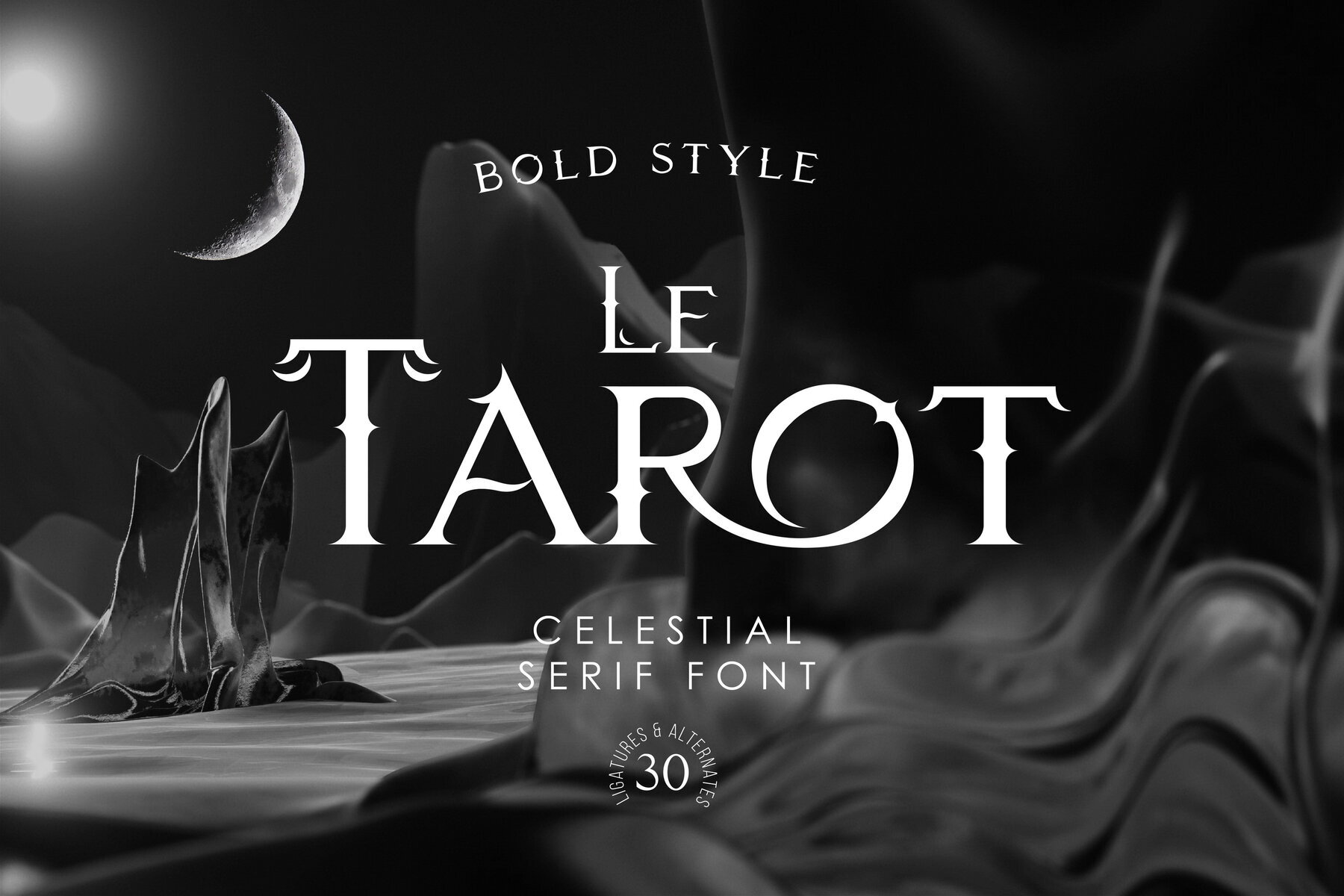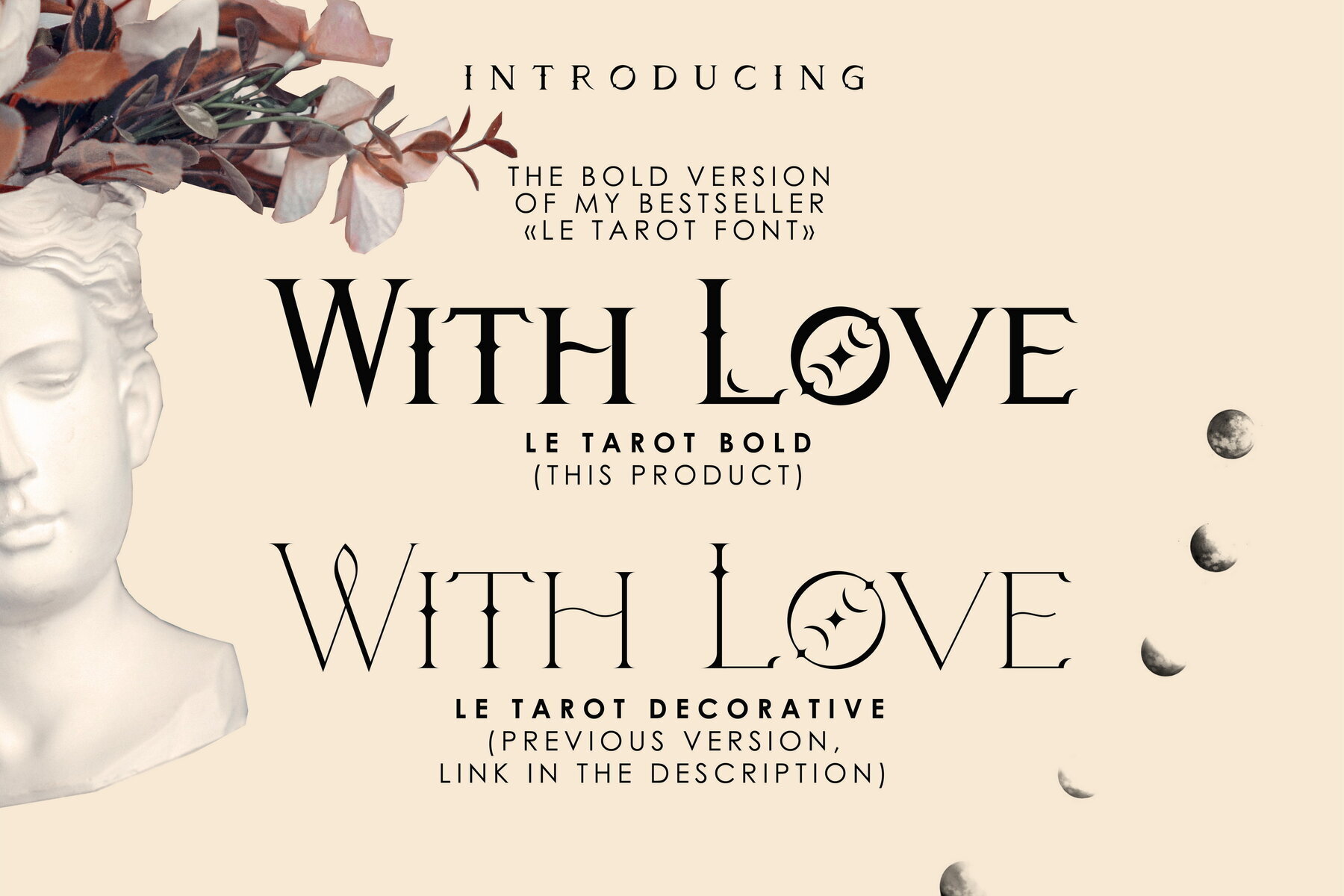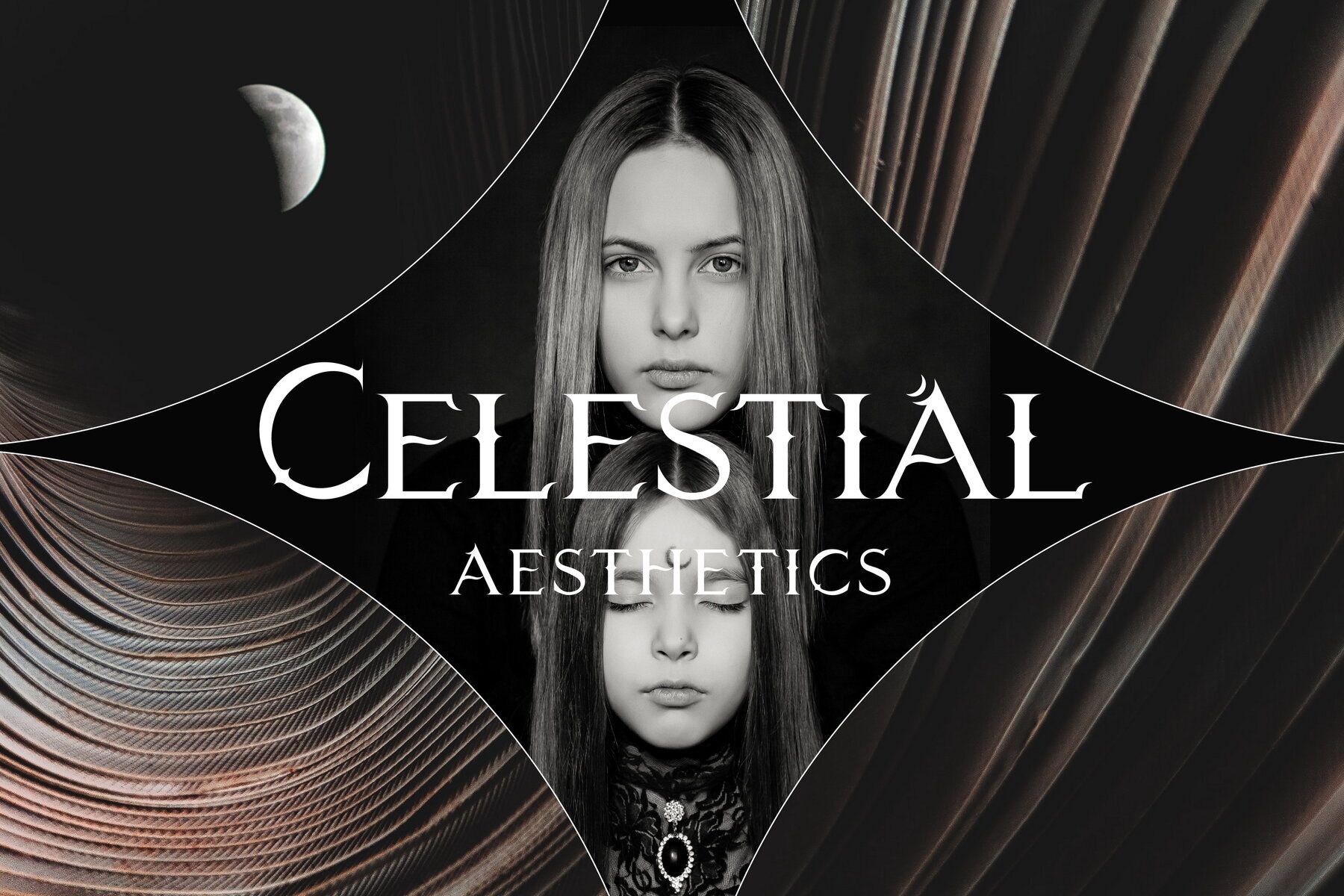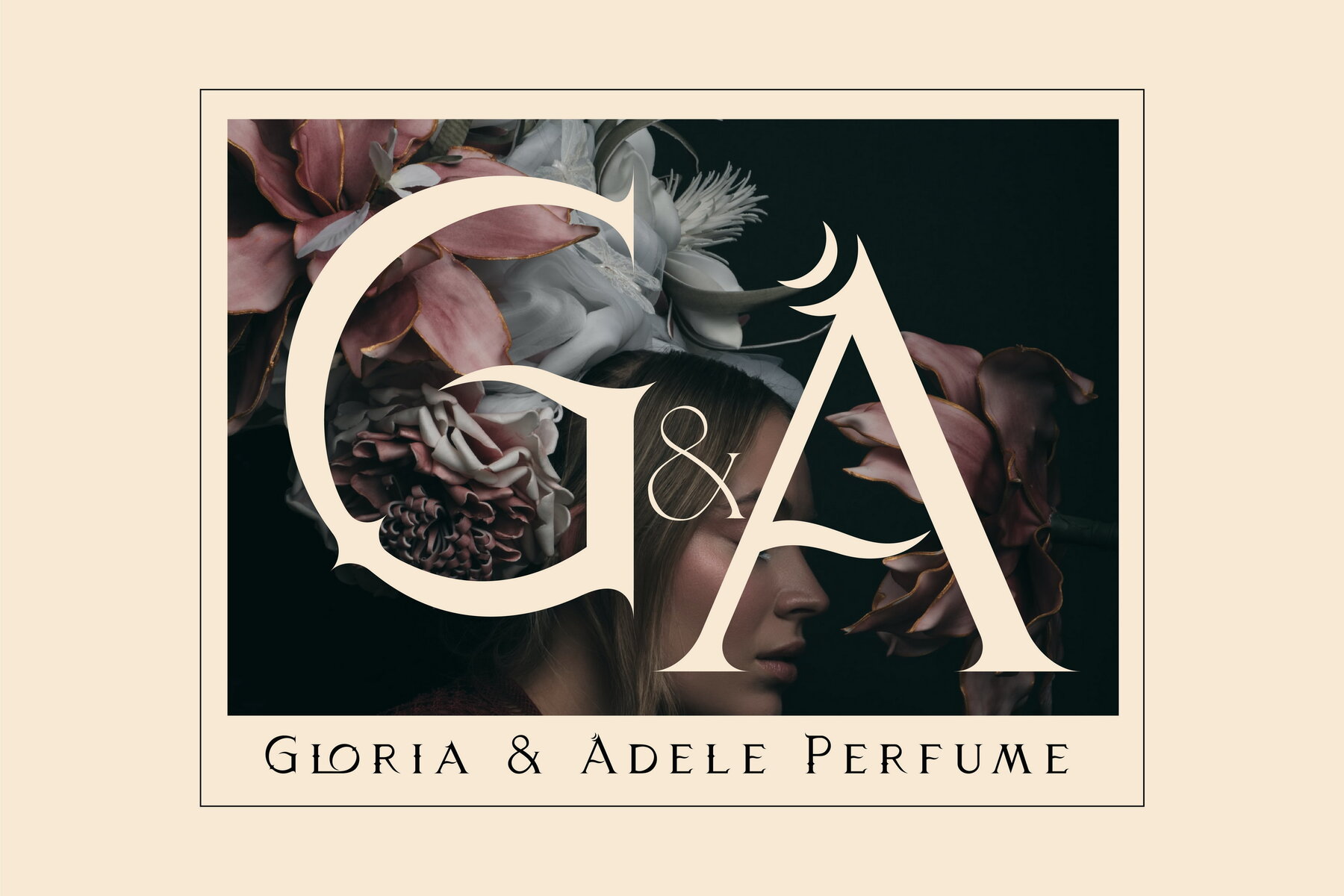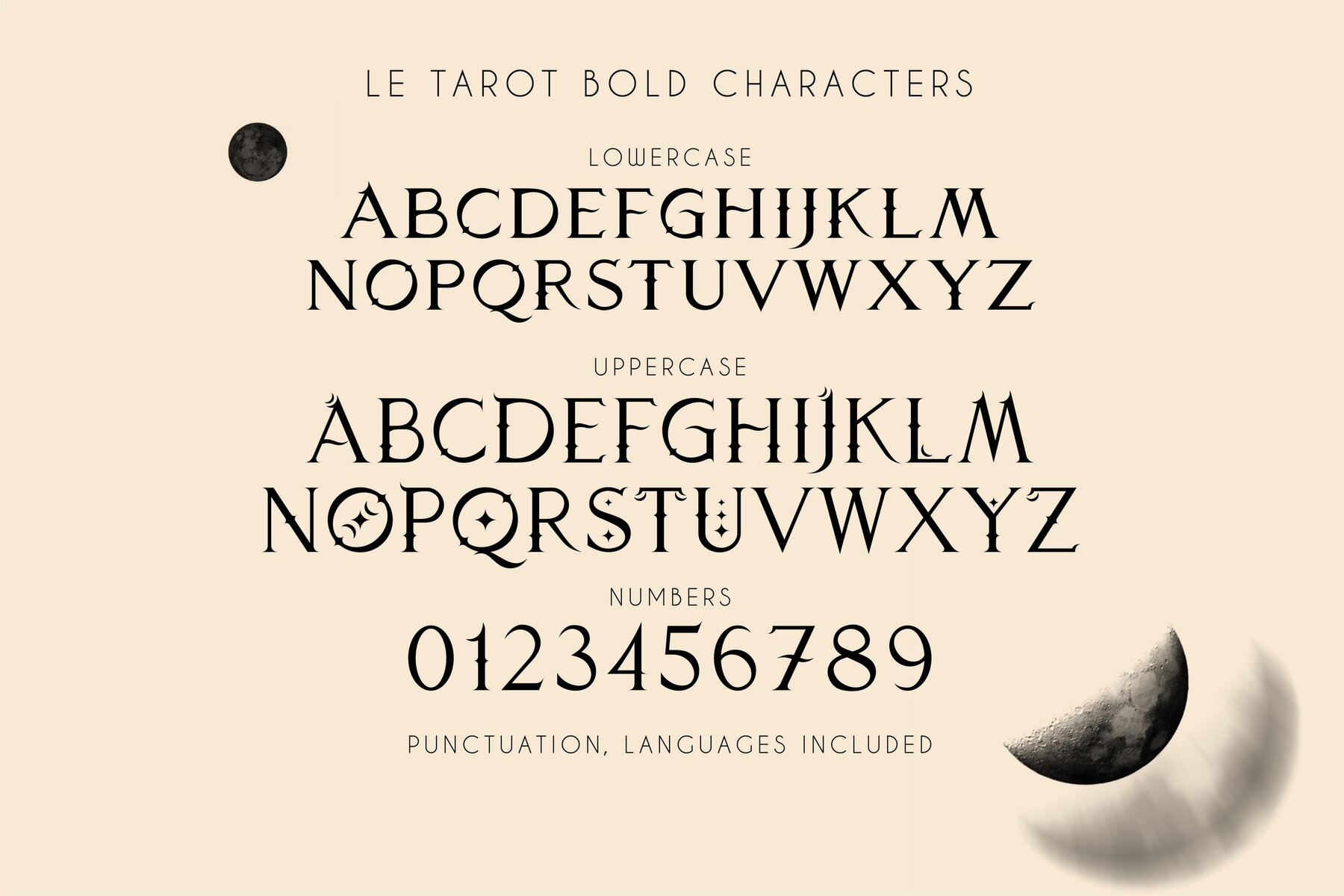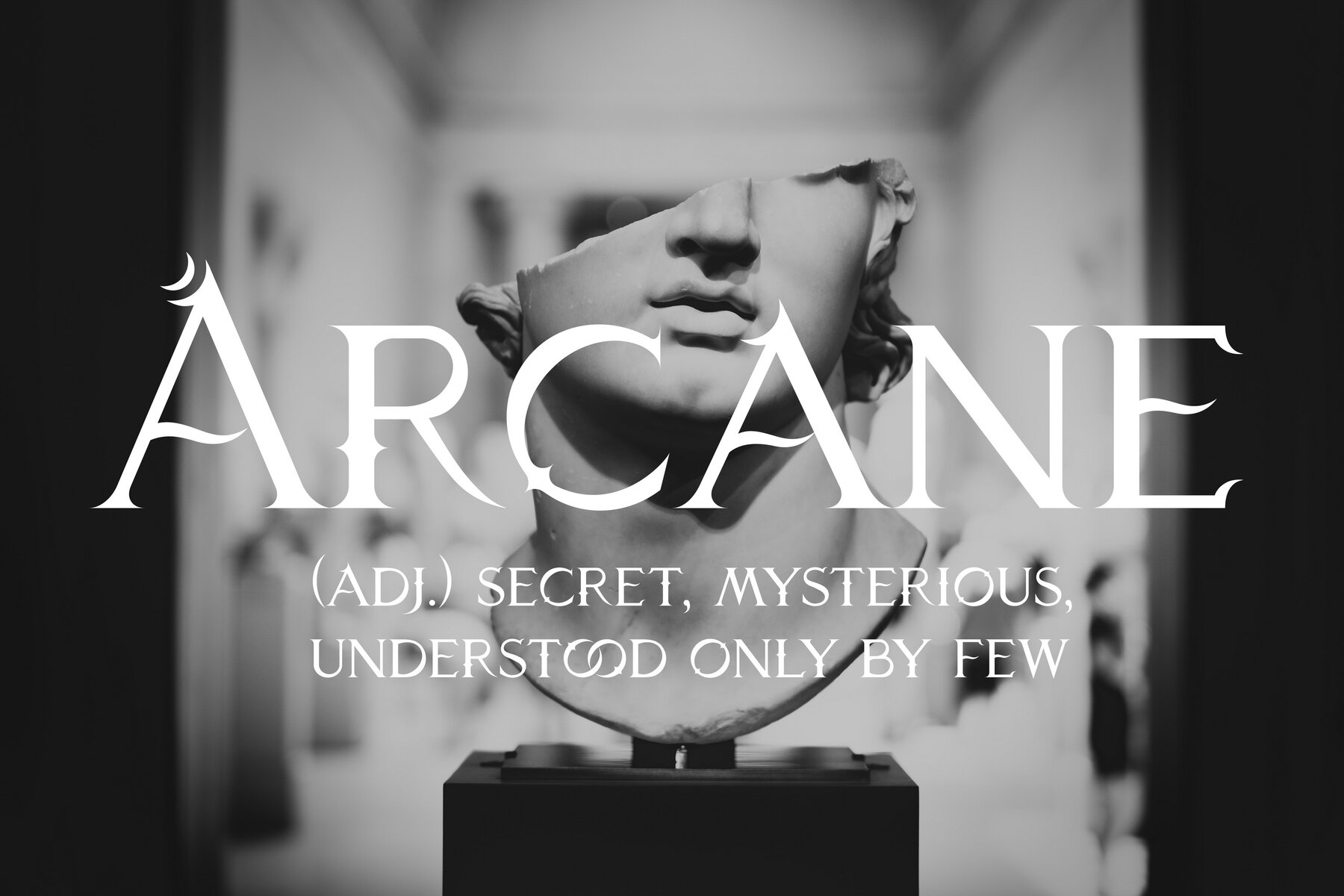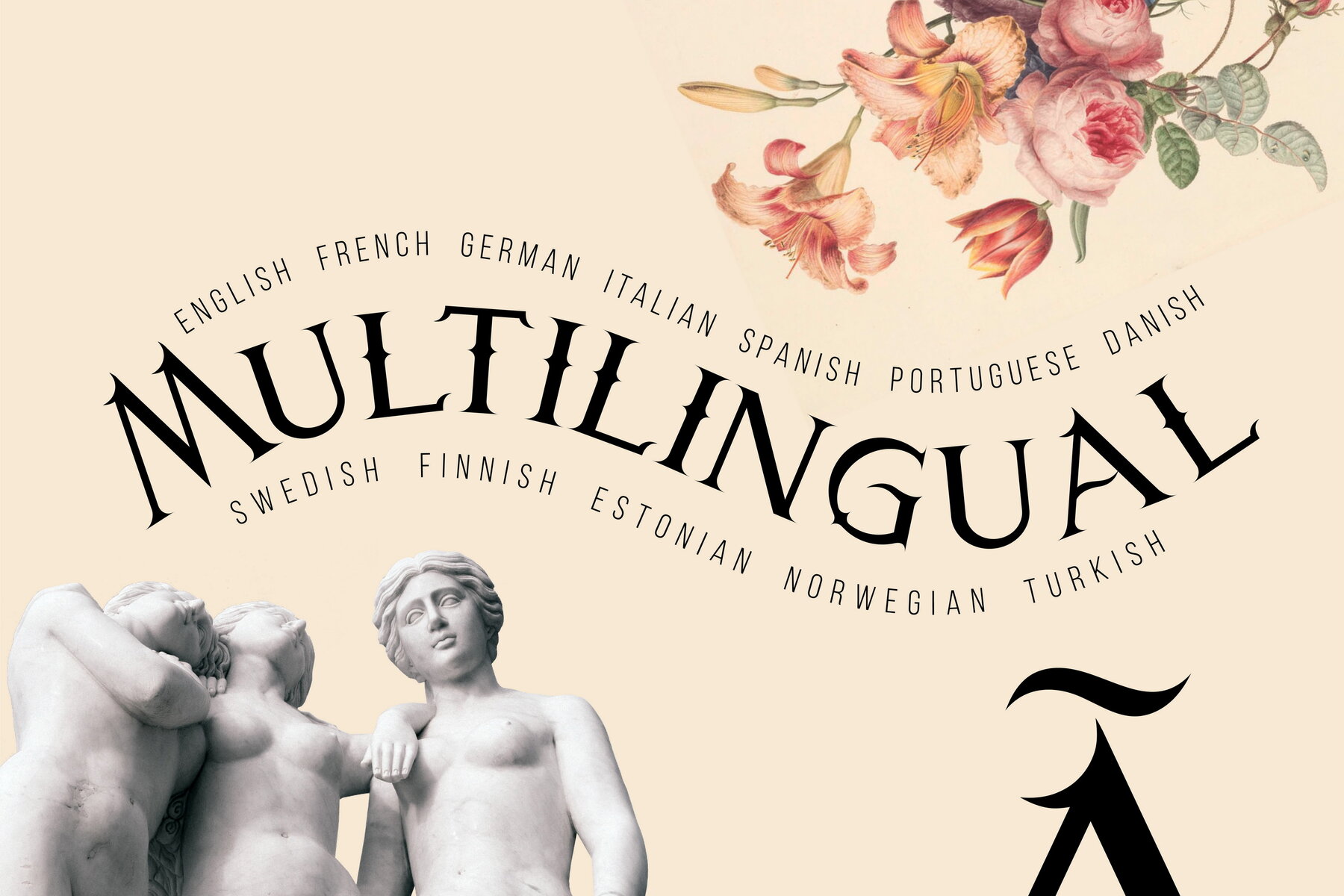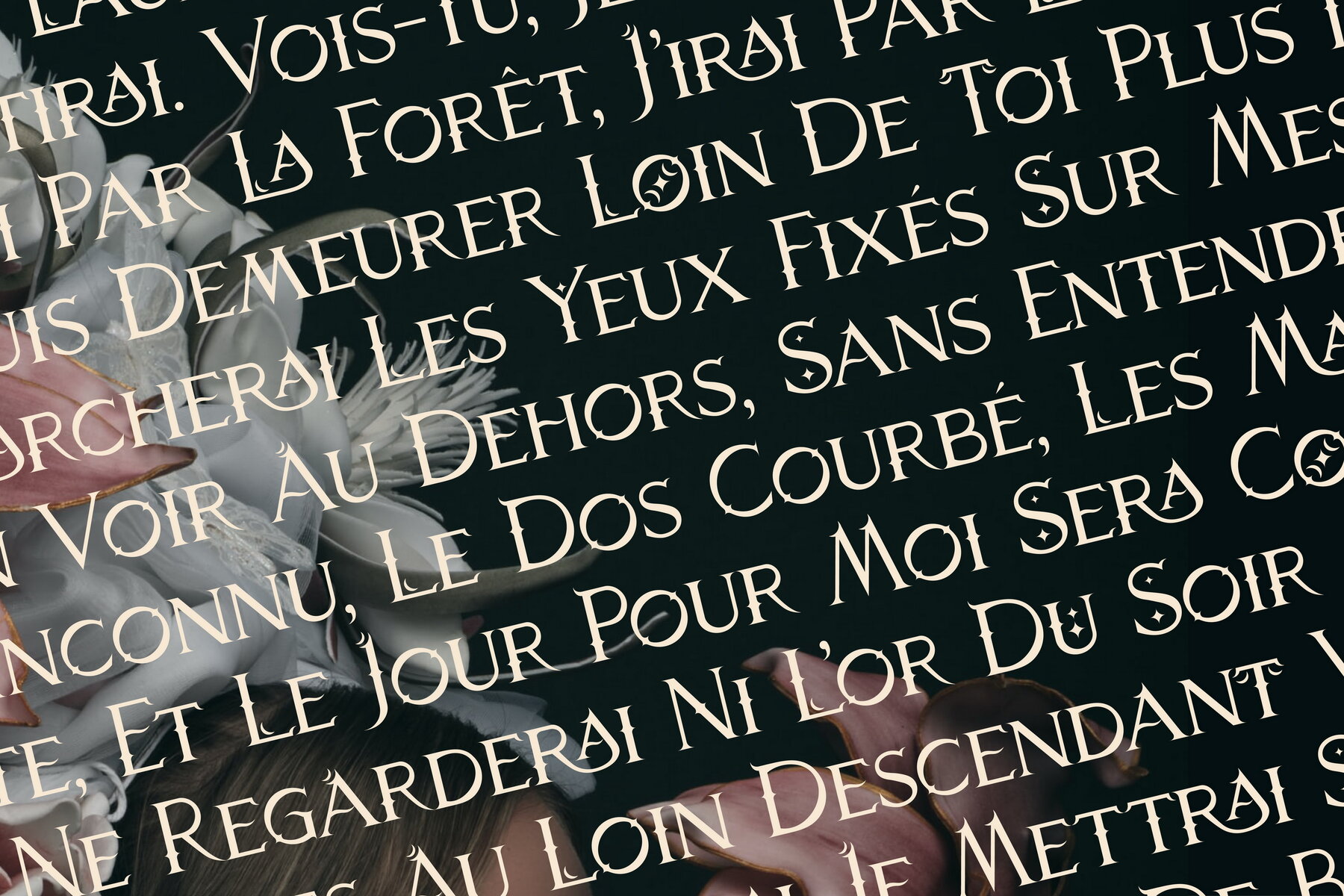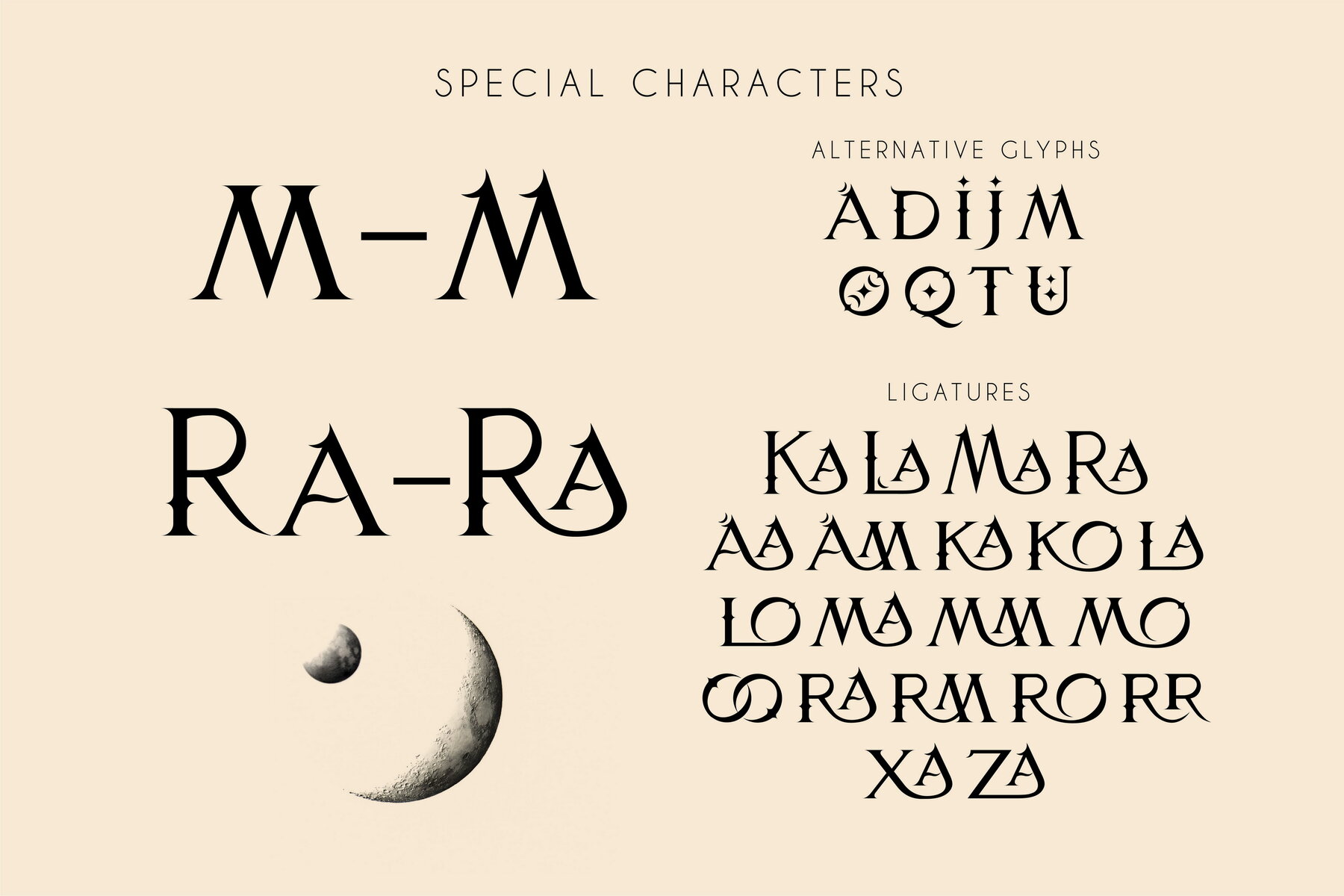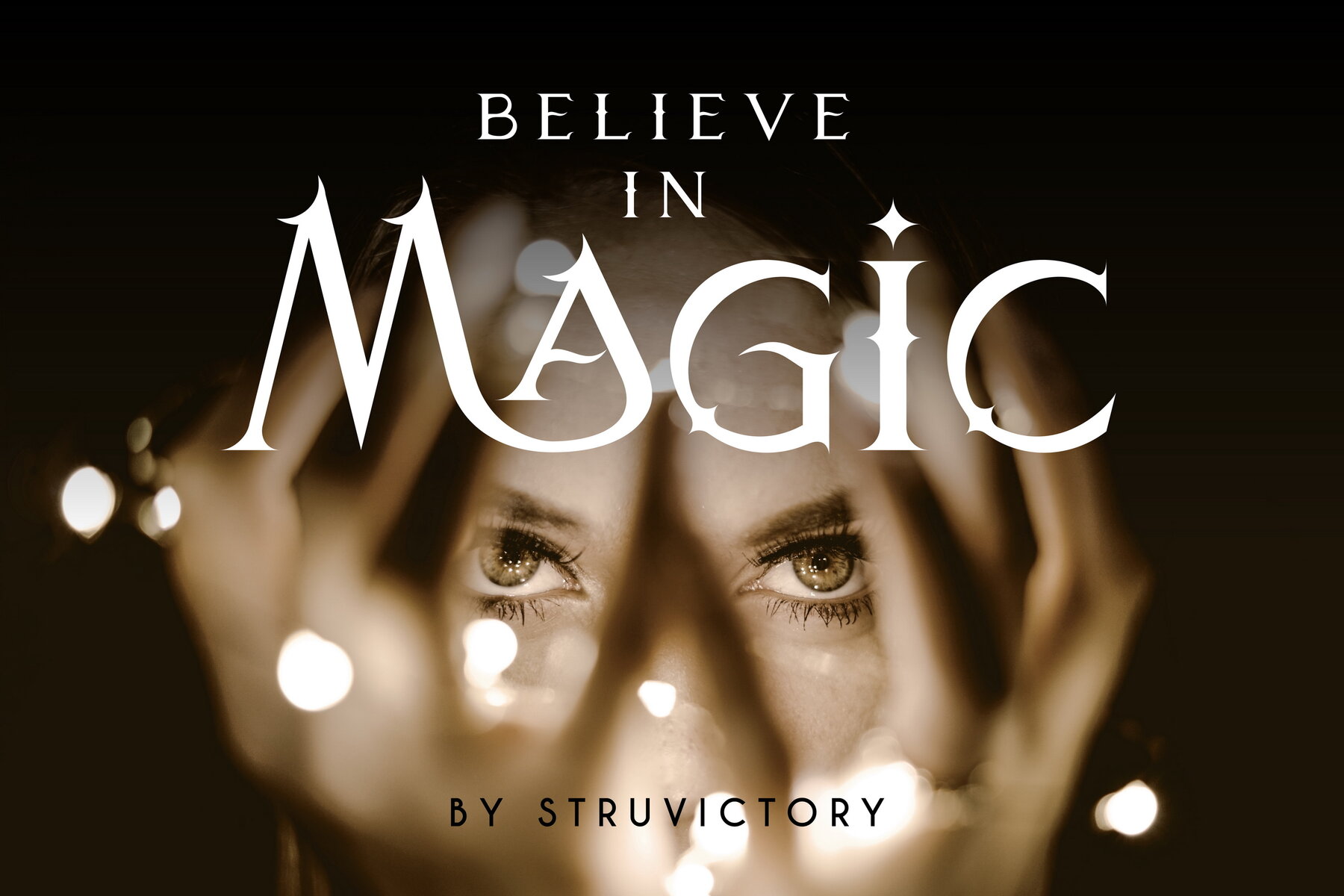
Le Tarot Bold
Le Tarot Bold is a modern serif font enriched with celestial motifs, skillfully blending classic proportions with decorative elements like the moon and stars. This font is ideal for projects centered around themes of astrology, mysticism, spirituality, witchcraft, magic, and esotericism. Le Tarot Bold offers broad language compatibility, supporting English, French, German, Italian, Spanish, Portuguese, Danish, Norwegian, Swedish, Finnish, Estonian, and Turkish.Le Tarot Bold: A Modern Serif with Celestial Inspirations
Extensive Language Support